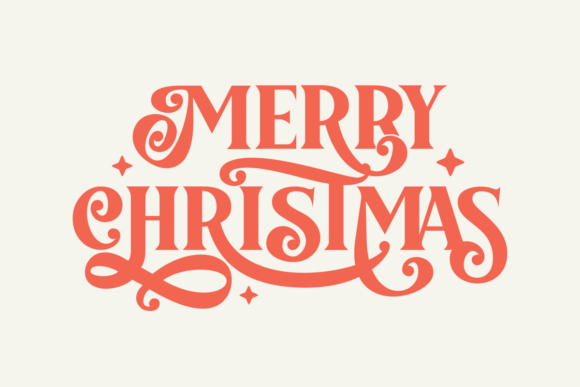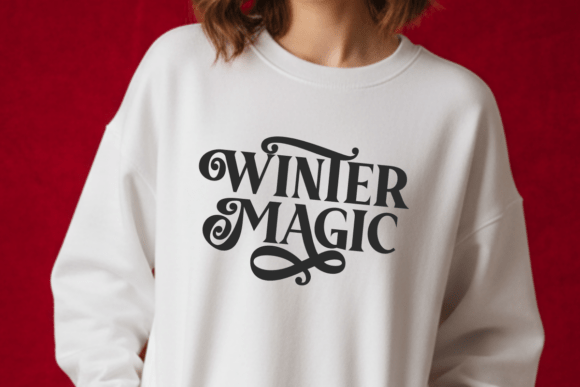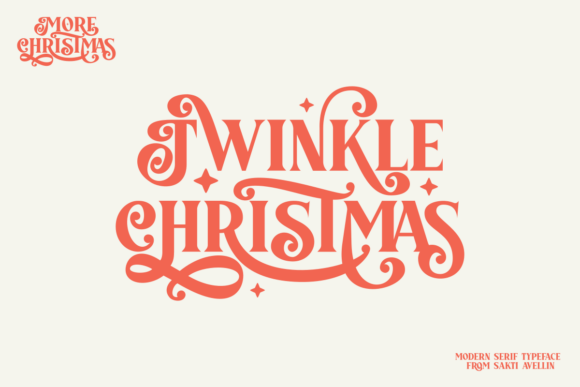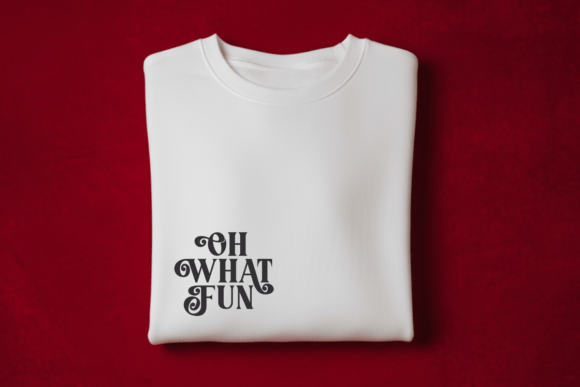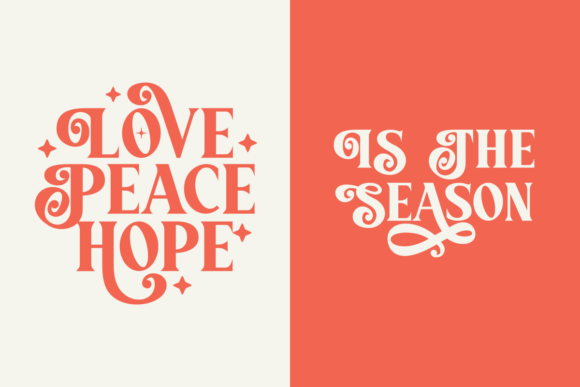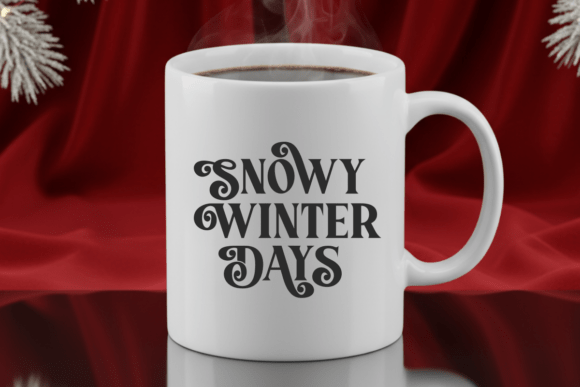
Introduction to More Christmas Font
As designers, we’ve all been there – staring at a blank canvas, trying to conjure up the perfect festive design for the holiday season. But what if you could tap into the magic of the season with a single, show-stopping typeface? Enter the More Christmas Font, a delightful modern display serif that embodies the spirit of celebration and cheer.
With its playful, over-the-top decorative swashes and beautifully structured, chunky letterforms, the More Christmas Font is the ultimate design resource for any creative project. Its unique blend of traditional elegance and hand-lettering flair makes it a standout choice for holiday-themed materials, from greeting cards to event branding and product packaging.
Key Features of More Christmas Font
- High-quality design resource ideal for creative projects, especially those related to the holiday season.
- Unique, festive design that adds a touch of holiday cheer to any creative project.
- Perfect for use in digital and print media, including social media graphics, posters, and greeting cards.
Honest Review: More Christmas Font
I recently stumbled upon the More Christmas Font, and I must say it’s a delightful addition to any creative project. This design resource is perfect for those who want to add a touch of festive cheer to their work.
- ✨ High-quality design: The font is crisp, clean, and well-designed, making it perfect for printing or digital use.
- ✨ Transparent background: This feature allows for easy layering and flexibility in your design.
- ⚠️ Limited font variations: The More Christmas Font comes with a limited number of font variations, which might not be suitable for complex design projects.
- ⚠️ Not ideal for sans-serif designs: The font has a distinct serif style, which might not be suitable for designs that require a sans-serif font.
Overall, I’m impressed with the More Christmas Font. It’s a great resource for designers who want to add a touch of Christmas magic to their work. While it has some limitations, the quality and flexibility of the font make it a worthwhile download.
For the best results, use the More Christmas Font in conjunction with other design elements, such as snowflakes, holly, or festive colors. Experiment with different font sizes and styles to create a unique look.
This font is perfect for creating holiday-themed designs, such as greeting cards, posters, and social media graphics. It’s also great for adding a seasonal touch to business presentations, newsletters, and other marketing materials.